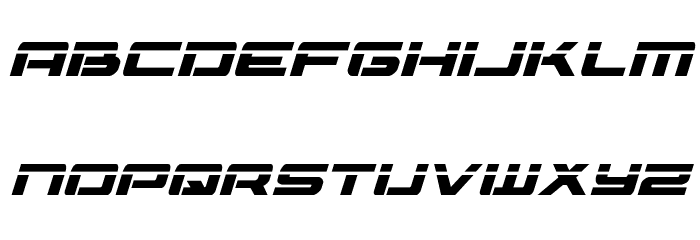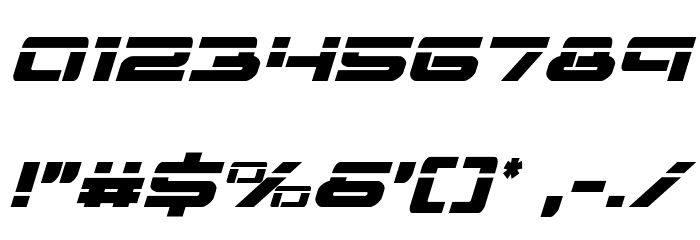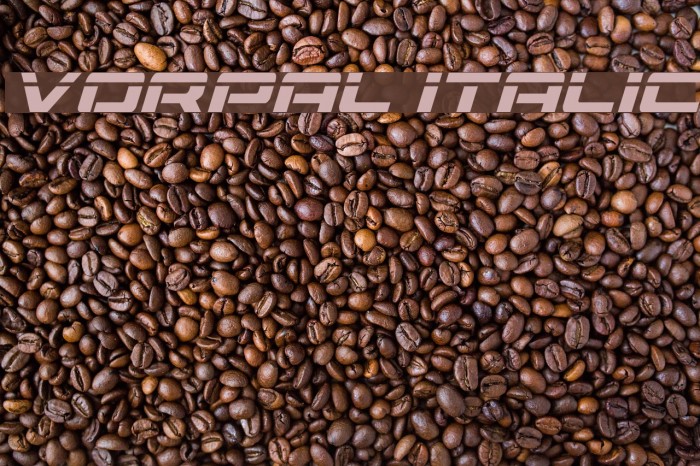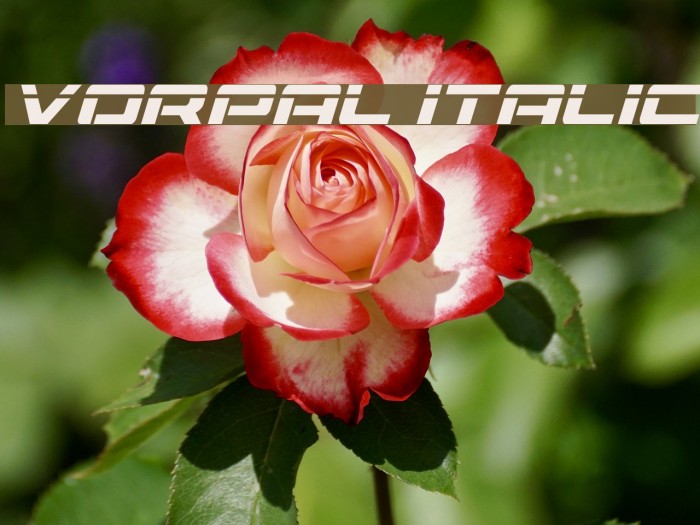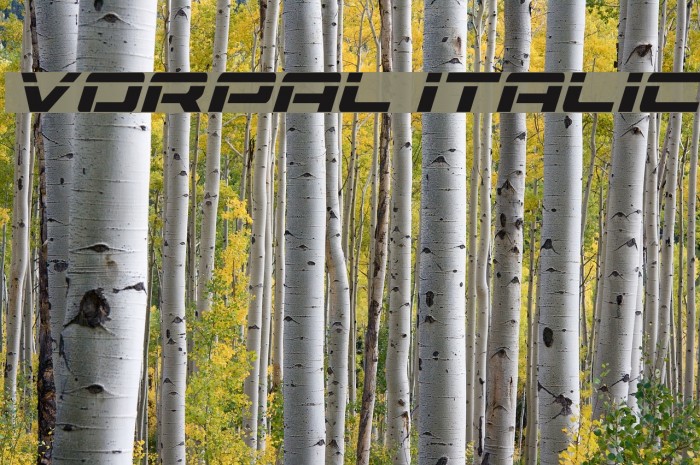
Vorpal Italic Font
This font features a futuristic and dynamic design with sharp, angular lines and a forward-leaning italic style. The characters are bold and impactful, with a distinct geometric structure that gives a sense of speed and modernity. The uppercase and lowercase letters maintain a consistent style, while the numerals and special characters complement the overall aesthetic. The font's design is suitable for projects that require a contemporary and edgy look, making it ideal for technology-related branding, sports team logos, or sci-fi themed designs.
A bold, futuristic italic font with sharp, angular lines and a dynamic style.
- Proposed Projects: Ideal for technology branding, sports logos, sci-fi themes, and modern advertising.
- Use Case: Logos, Headlines, Branding